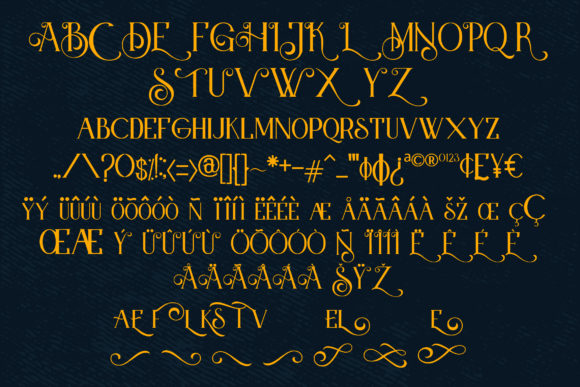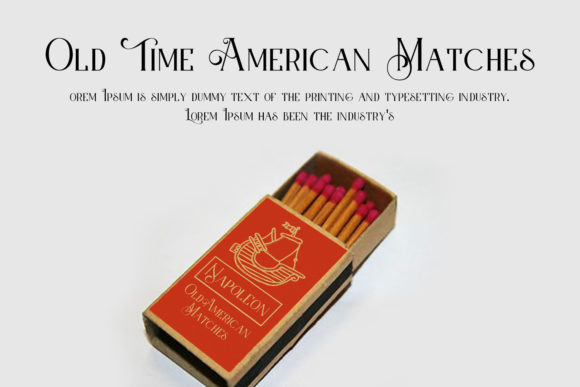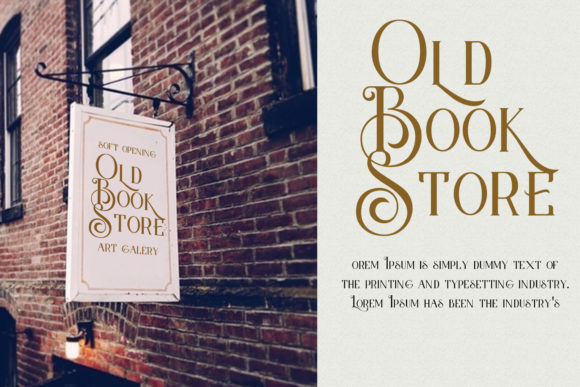
Introduction to New Athlenstan Font
You know that moment when you’re working on a design project, and you just can’t seem to find the right font to bring it all together? The words are stuck in your head, the images are perfectly placed, but something’s missing – that special je ne sais quoi that makes it truly pop. For designers, finding the perfect font can be the difference between a good design and a great one.
Enter the New Athlenstan Font, a high-quality design resource that’s sure to add that special retro touch to any creative project. With its playfully nostalgic feel and vintage aesthetic, this font is perfect for designers looking to add a unique element to their designs.
Key Features of New Athlenstan Font
- High-quality font design suitable for creative projects, with a unique blend of modern and vintage elements.
- Transparent background, allowing for seamless integration with any design or image, making it perfect for digital art, graphics, and illustrations.
- Available in 5 different font sizes, ranging from 12 to 72 points, making it suitable for a wide range of applications, from small text to large headings.
- Resolution-independent design, ensuring that the font looks crisp and clear on any device or screen, regardless of the resolution.
- Unique characteristics include intricate details, ornate flourishes, and subtle textures, making it perfect for adding a touch of elegance and sophistication to any design project.
- Perfect for use in graphic design, digital art, typography, and other creative fields where a high-quality, unique font is required.
Honest Review: New Athlenstan Font
I recently had the chance to work with the New Athlenstan Font for a creative project, and I must say, it’s been a game-changer. This high-quality font has been a design resource that I’ve been searching for, and I’m so glad I stumbled upon it.
- ✨ High-quality design: The font is sleek, modern, and perfect for any creative project.
- ✨ Transparent background: The transparent background allows for seamless integration with any design element, giving you more creative freedom.
- ⚠️ Limited font variations: While the font itself is excellent, I wish there were more variations available to choose from.
- ⚠️ Not ideal for small text: At smaller font sizes, the letters can become difficult to read, making it less suitable for certain design projects.
Overall, I’m impressed with the New Athlenstan Font and would highly recommend it for any design project. Its high-quality design, free download, and transparent background make it an excellent design resource. With a few tweaks to address the limitations, it would be an even more valuable addition to any designer’s toolkit.
New Athlenstan Font is perfect for a variety of creative projects, including branding, marketing materials, and digital art. Its unique design and high quality make it an excellent choice for anyone looking to add a touch of sophistication and style to their work.
To get the most out of New Athlenstan Font, be sure to experiment with different font sizes, colors, and combinations to create a unique and eye-catching design. Additionally, consider using the font in conjunction with other design elements, such as graphics and images, to add depth and interest to your project.